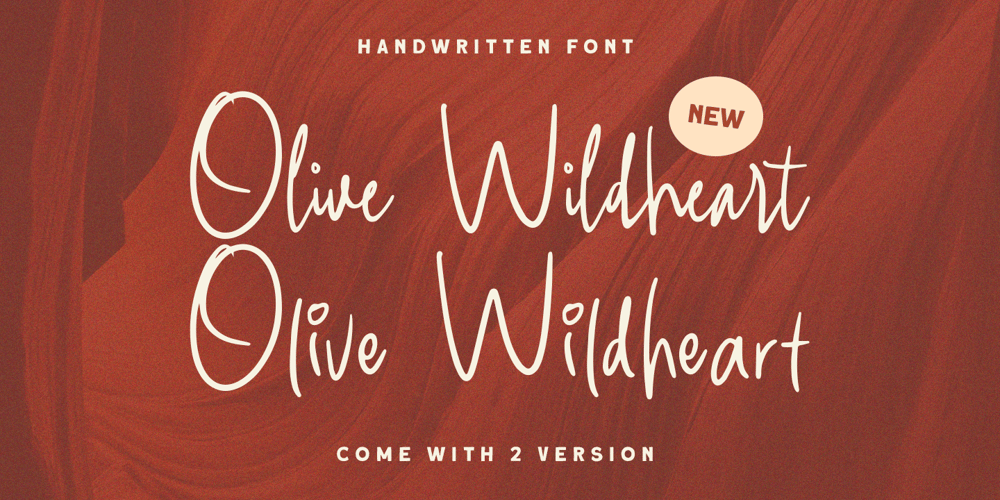
Olive Wildheart
Olive Wildheart font
Olive Wildheart Font Family was designed by Hendry Juanda and published by Letterhend. Olive Wildheart contains 2 styles and family package options. Olive Wildheart is sophisticated script based on manual hand writing. This typeface comes with 2 style fonts which you can choose from. This type of font perfectly made to be applied especially in logo, and the other various formal forms such as invitations, labels, greeting / wedding cards, packaging, fashion, make up, stationery, novels, labels or any type of advertising purpose.Features : Uppercase & lowercase Numbers and punctuation Alternates & Ligatures Multilingual PUA encoded